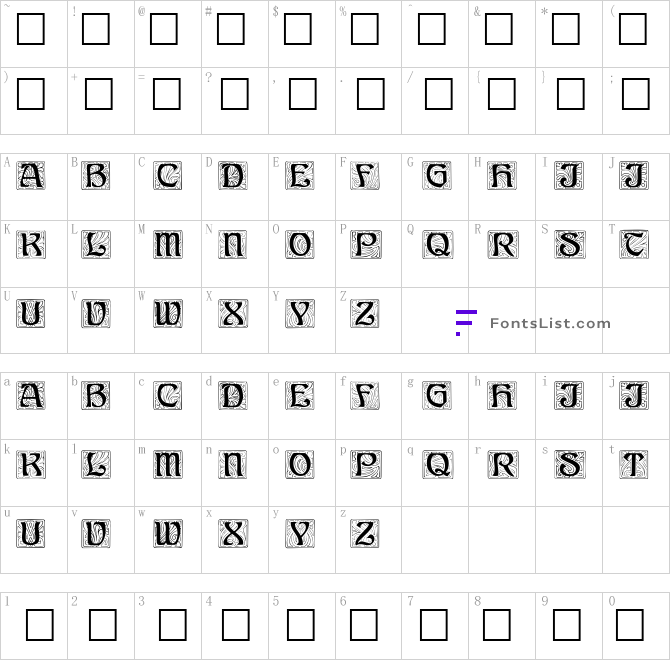
- Font Name:Anne-Stone
Anne-Stone-Regular.ttf is a very beautiful artistic font, Anne-Stone-Regular.ttf is widely used in the design and printing of various books and pictures,Anne-Stone-Regular.ttf has a strong visual impact,Anne-Stone-Regular.ttf is a commonly used font in newspapers, magazines and books, and is used in posters, e-commerce Poster design, store design, logo design, font design and other fields.Anne-Stone-Regular.